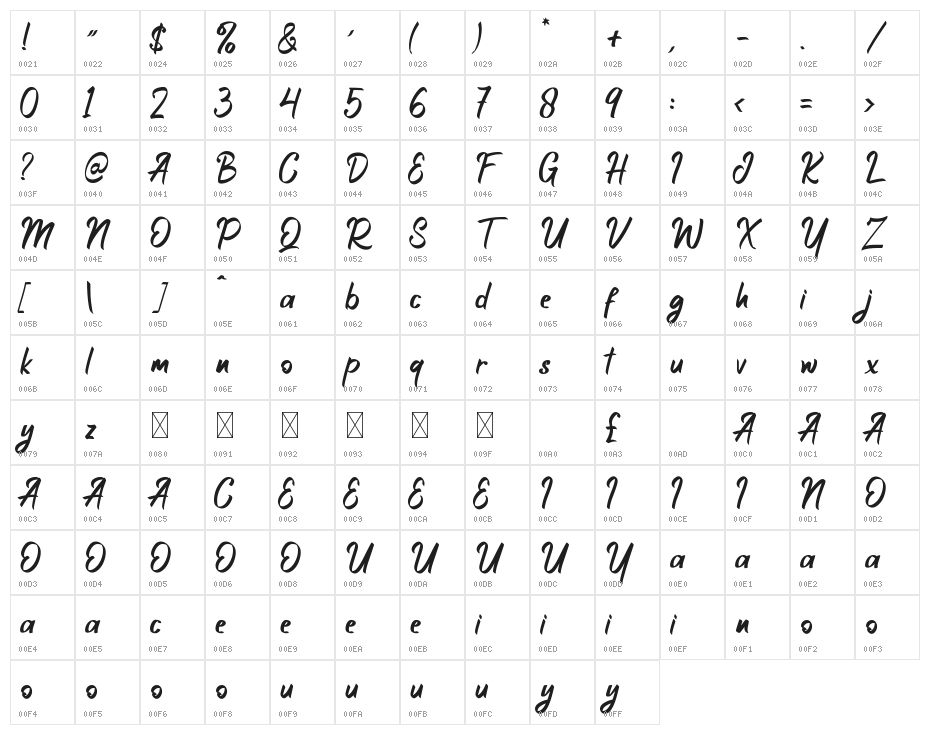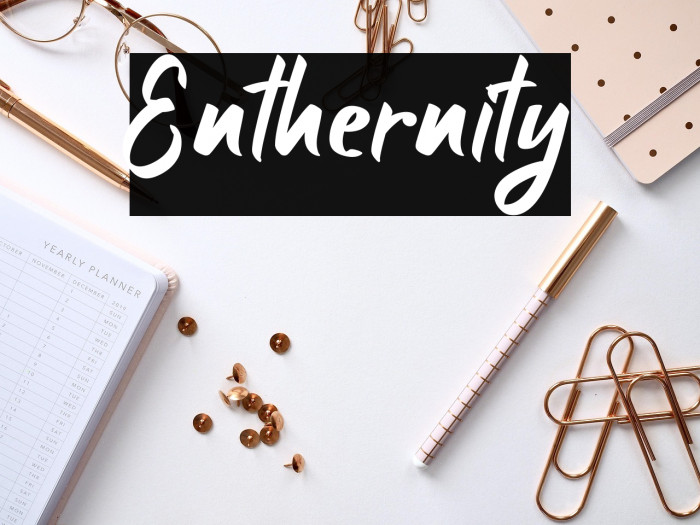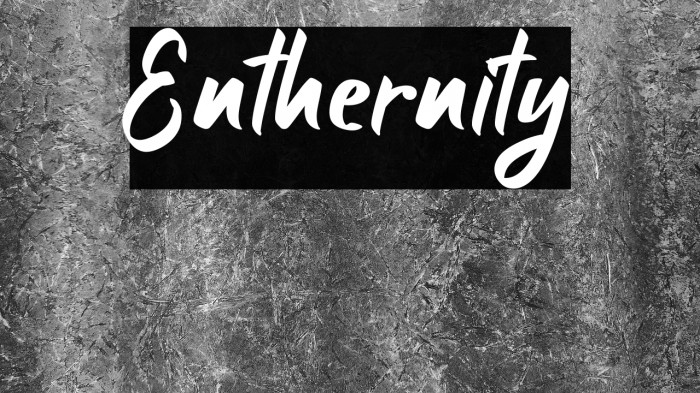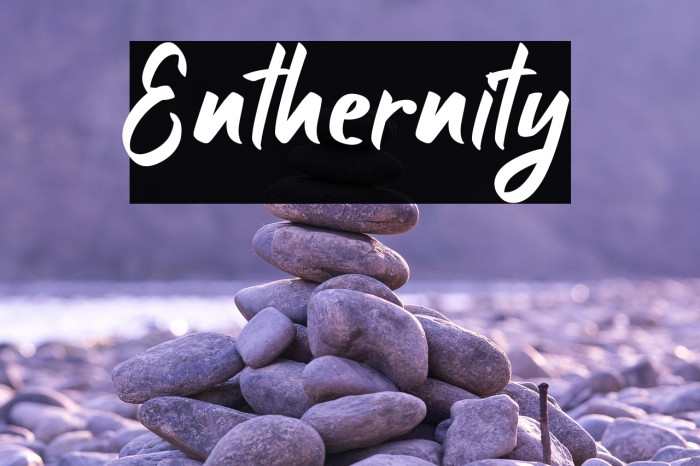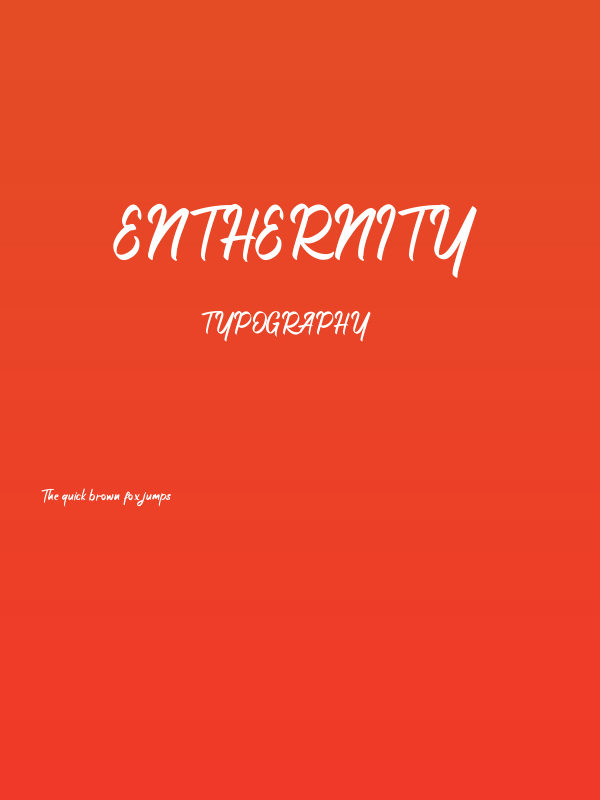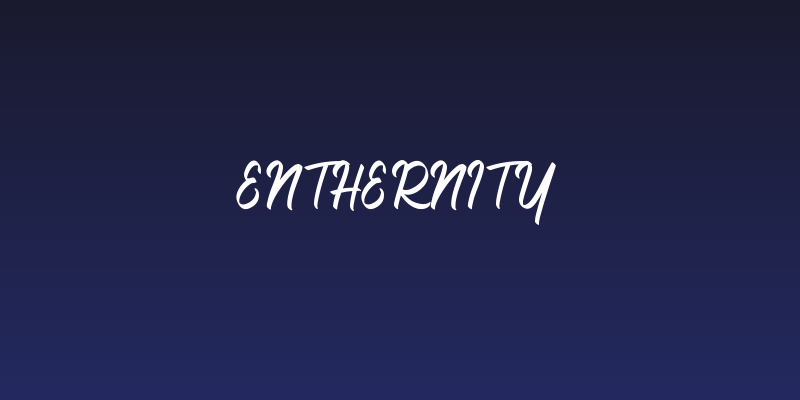
Enthernity Font
Enthernity Description
This font features a dynamic and expressive style, characterized by its bold, flowing script. The letters have a handwritten appearance, with smooth curves and a slightly slanted orientation that adds to its energetic feel. The uppercase letters are bold and prominent, while the lowercase letters maintain a consistent flow, enhancing readability. The numerals and special characters are designed to match the overall aesthetic, ensuring a cohesive look across all text elements. This font's playful yet sophisticated style makes it suitable for a variety of creative applications.
| Use Case | Logos, Headlines, Invitations |
| Proposed Projects | Ideal for branding, invitations, greeting cards, and creative design projects that require a personal touch. |